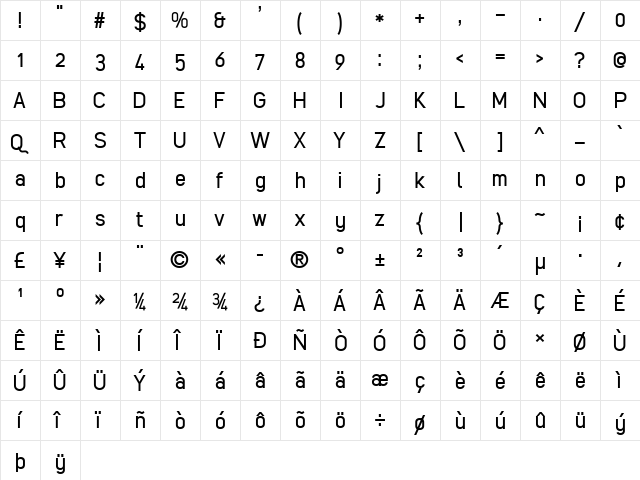
cibreo Regular
| Foundry | studio kmzero |
| Designer | Francesco Canovaro |
Design Context for cibreo Typeface
cibreo takes a measured approach to typography — its balanced proportions and neutral character make it a reliable workhorse for both digital and print work.